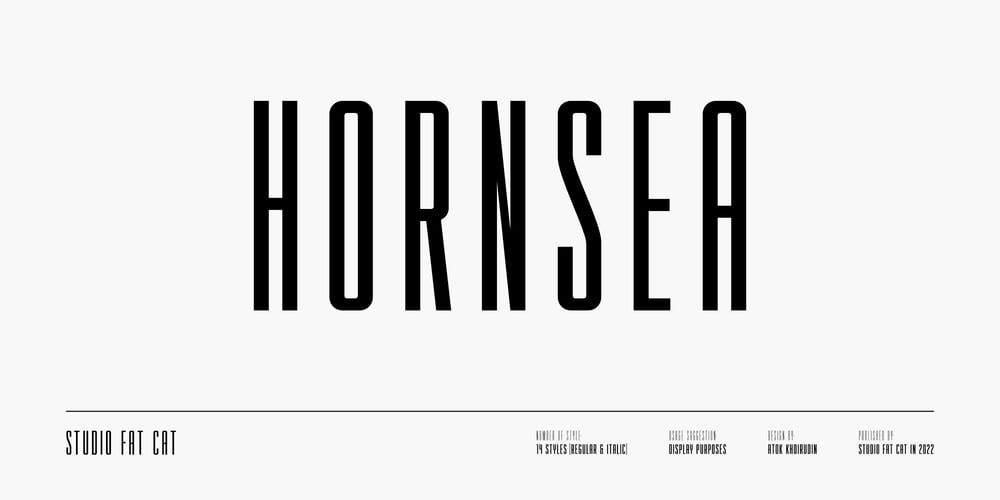
Hornsea FC Font Family was designed by Atok Khoirudin and published by Studio Fat Cat. Hornsea FC contains 14 styles and family package options. Hornsea FC is a super condensed font family that designed for display purposes. 14 styles of Hornsea FC font will let you to explore more your creativity.Related keywords:modern font, branding font, logo font, magazine font, display font, packaging font, logotype font, contemporary font, elegant font, poster font, headline font, geomatric font, corporate font, serif font, sans serif font, classic font, advertising font, fashion font, editorial font, design font, vintage font, identity font, book font, text font, legible font, grotesk font, grotesque font, technical font, clean font, swiss font, web font, wordmark font, serif font, retro font luxury font, unique font, typography font, title font, playful font, signage font, german font, workhorse font, versatile font, neutral font, condensed font, expanded font, slab serif font, college font, sports font, sport font, slab font, football font, baseball font, athletic font, varsity font, soccer font, basketball font, american font, ligatures font, wedding font, feminine font, classy font, chic font, script font, opentype font, contemporary font, oriq font, handwriting font, handwritten font, urban font, stylish font, fashion font, bold font, handmade font, casual font, trendy font, signature font, marker font, street font, font family,